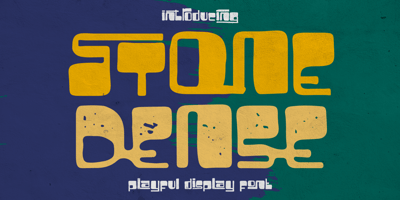
Stone Dense Font Family was designed by Putra Novembria Candra Kusuma and published by Putracetol. Stone Dense contains 2 styles and family package options. Stone Dense is a playful display font. Stone Dense has a large number of ligatures, 160 ligatures. So that makes this display font more playful and unique. And Stone Dense has a bold body, with unequal widths for the characters. Stone Dense can suitable for your projects that require fonts with bold and strong characteristics.Such as branding, logos, titles, headlines, printing, magazines, quotes, posters, fashion, t-shirts, apparel and others.Stone Dense is also support multi language.